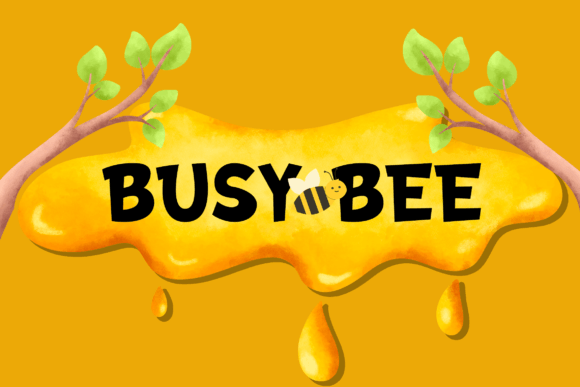
In a world bursting with digital noise, where attention spans are shorter than a hummingbird's flight, Busy Bee Font emerges as a beacon of clarity and engagement, captivating the hearts of kids and adults alike. Inspired by the bustling world of bees, this font is a symphony of readability and charm, designed to make your words dance off the screen and into the minds of your audience.
Journey into the realm of children's books, where Busy Bee Font weaves tales of adventure, friendship, and imagination. Its playful curves and energetic strokes bring life to characters, making them leap off the page and into the hearts of young readers. This font is a storyteller's dream, transforming ordinary words into enchanting narratives that ignite a child's curiosity and leave them begging for more.
Venture into the vibrant world of online games, where Busy Bee Font becomes a dynamic player in creating immersive experiences. Its energetic style adds an extra layer of excitement to game interfaces, menus, and character dialogues. Players will feel the thrill of the chase, the surge of victory, and the sting of defeat, all while immersed in the captivating world you've created.
Picture the buzz of a teen event, where Busy Bee Font electrifies posters and flyers, inviting teens to a night of music, laughter, and unforgettable memories. Its bold and playful style captures the energy and enthusiasm of youth, making it the perfect choice for promoting events that resonate with their vibrant spirits.
Step into the world of school supplies, where Busy Bee Font transforms notebooks, pencils, and folders into colorful companions for young learners. Its friendly and engaging nature makes learning a joyful adventure, inspiring students to explore new subjects and unlock their full potential. This font is an educational cheerleader, turning textbooks into treasure maps and homework assignments into thrilling quests.
Envision the impact of Busy Bee Font on posters and movie titles, where it commands attention like a spotlight on a stage. Its striking appearance demands to be seen, captivating audiences and leaving an indelible mark on their minds. This font is a visual storyteller, conveying emotions and setting the tone for cinematic experiences that linger long after the credits roll.
Dive into the realm of YouTube, where Busy Bee Font becomes a visual symphony on covers and thumbnails, drawing viewers into a world of entertainment, information, and inspiration. Its dynamic style complements the fast-paced nature of online videos, keeping viewers engaged from the first click to the last. This font is a digital magnet, attracting viewers and turning them into loyal subscribers.
Picture the vibrancy of social media page covers, where Busy Bee Font dances across the screen, inviting users to explore your brand's story. Its energetic personality reflects the pulse of social media, capturing attention and sparking curiosity. This font is a social butterfly, connecting you with a community of like-minded individuals who share your passions and interests.